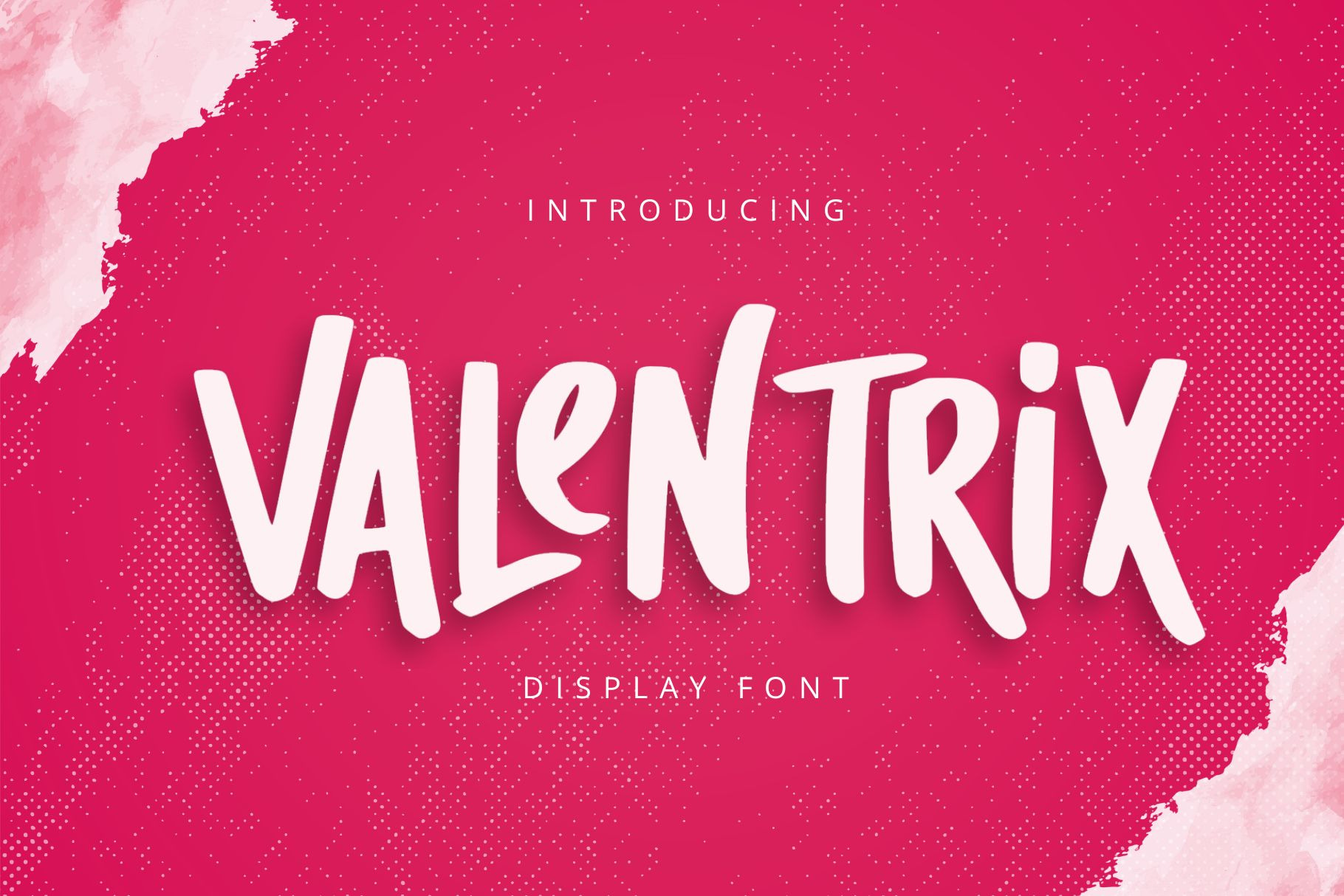
Valentrix - Display Font
Valentrix features graceful curves and striking lines, ideal for wedding themes, luxury branding, and romantic posters. Its balance of elegance and boldness creates a captivating visual statement for impactful designs.